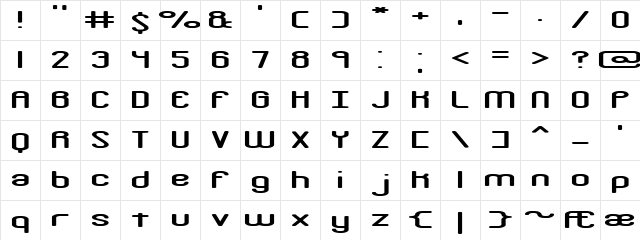
Crackdown R (BRK) Regular
Crackdown R (BRK) offers clean, dependable letterforms without strong stylistic allegiance, making it a practical choice for designers who need flexibility.